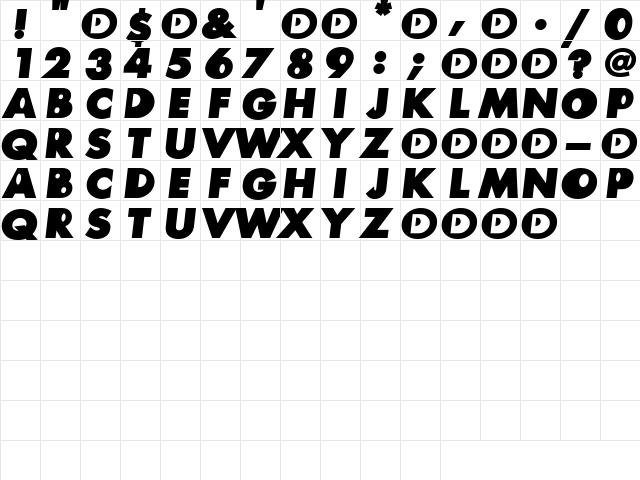
Upsmack Regular
Design Context for Upsmack Typeface
Upsmack offers clean, dependable letterforms without strong stylistic allegiance, making it a practical choice for designers who need flexibility.
Pro Tip: Pair Upsmack with a font of contrasting weight or personality to build a more expressive typographic hierarchy.